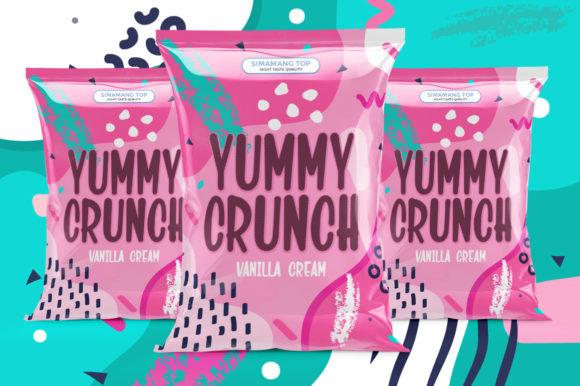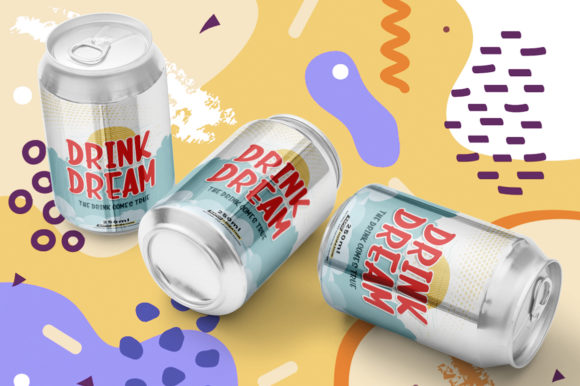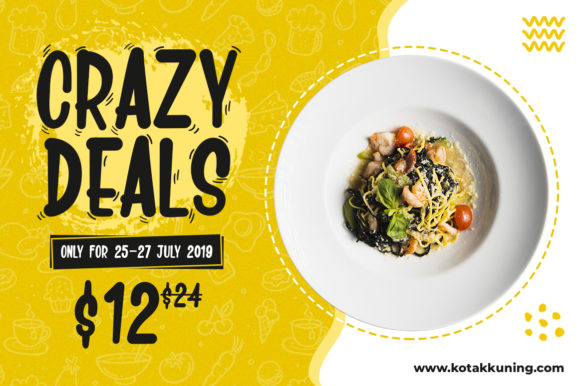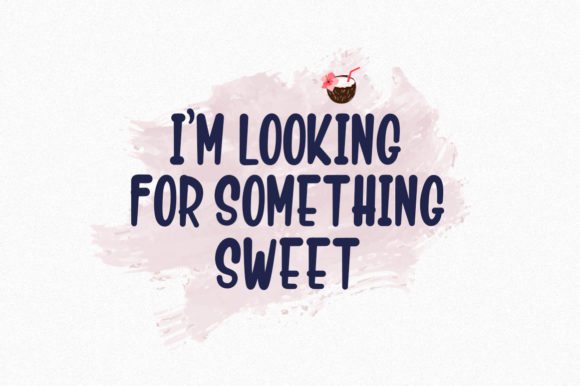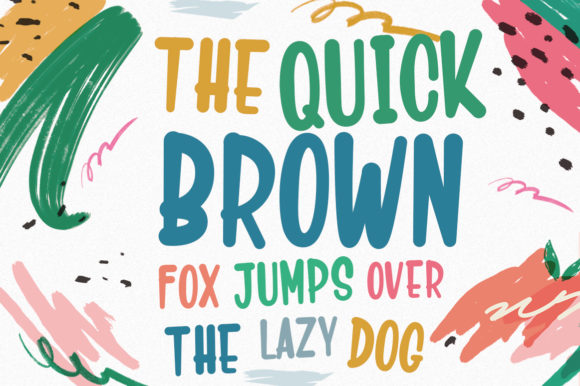
Introducing Crash Mounty Font: Add a Fun Touch to Your Crafts
Crash Mounty is a playful and unique font that will easily add a fun touch to any craft! Whether you’re a designer, crafter, or DIY enthusiast, this font is sure to bring a smile to your face and inspire your creativity. In this article, we’ll take a closer look at the Crash Mounty font, its features, and how you can use it to elevate your crafts and designs.
What is Crash Mounty Font?
Crash Mounty is a modern, handwritten font that exudes playfulness and whimsy. Its unique design makes it perfect for adding a personal touch to your crafts, DIY projects, and digital designs. The font is highly versatile and can be used for a wide range of applications, from party invitations and greeting cards to social media graphics and blog posts.
Key Features of Crash Mounty Font
- Playful and Unique Design: Crash Mounty font boasts a one-of-a-kind design that’s sure to grab attention and add a fun touch to your crafts.
- Handwritten Style: The font’s handwritten style gives it a personal and approachable feel, making it perfect for crafts and DIY projects.
- Highly Versatile: Crash Mounty font can be used for a wide range of applications, from digital designs to print materials.
- Easy to Read: Despite its playful design, the font is easy to read, making it perfect for use in body text and headings.
How to Use Crash Mounty Font in Your Crafts
Crash Mounty font is incredibly easy to use and can be incorporated into your crafts in a variety of ways. Here are a few ideas to get you started:
- Party Invitations: Add a playful touch to your party invitations with Crash Mounty font. Use it to create fun and colorful invites that will set the tone for your celebration.
- Greeting Cards: Create personalized greeting cards with Crash Mounty font. Its unique design makes it perfect for special occasions like birthdays, weddings, and holidays.
- Social Media Graphics: Use Crash Mounty font to create eye-catching social media graphics that will help you stand out from the crowd.
- DIY Projects: Add a personal touch to your DIY projects with Crash Mounty font. Use it to create labels, signs, and other decorative elements.
Tips for Using Crash Mounty Font
Here are a few tips to keep in mind when using Crash Mounty font:
- Experiment with Colors: Crash Mounty font looks great in a variety of colors. Experiment with different color combinations to find the perfect look for your craft.
- Mix and Match Fonts: Don’t be afraid to mix and match Crash Mounty font with other fonts to create a unique look.
- Use it for Headings and Titles: Crash Mounty font is perfect for use in headings and titles. Use it to add a playful touch to your designs.
Crash Mounty font is a playful and unique font that’s sure to add a fun touch to any craft. Its highly versatile design makes it perfect for a wide range of applications, from digital designs to print materials. With its easy-to-read design and playful style, Crash Mounty font is a must-have for designers, crafters, and DIY enthusiasts. So why not give it a try and see how it can elevate your crafts and designs?